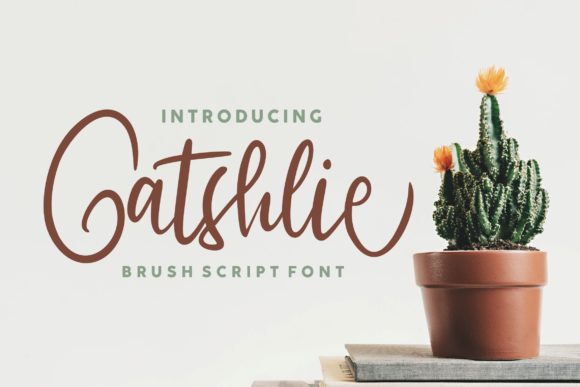
Gatshlie Script: A Luxurious Calligraphy Font
Gatshlie Script is a calligraphy typeface that brings elegance and fluidity to any design. Its characters seem to dance along the baseline, offering a unique visual rhythm that stands out in both digital and print formats. Whether you're crafting a logo, designing a wedding invitation, or creating branding materials, Gatshlie Script adds a touch of sophistication that can elevate your work.
What Is Gatshlie Script?
Gatshlie Script is a beautifully crafted font designed for those who appreciate the artistry of calligraphy. It features flowing lines and elegant curves that mimic the strokes of traditional hand-lettering. This makes it ideal for projects that require a personal, artistic feel rather than a purely functional typeface.
The font's adaptability allows it to be used in various contexts—from minimalist designs to more elaborate compositions. Its versatility ensures that it can be applied across multiple industries, including fashion, publishing, marketing, and even educational materials.
Why Different Audiences Care About Gatshlie Script
While Gatshlie Script may appeal to a wide range of users, its value can vary depending on the individual's goals and needs. Here's how different audiences might find it useful:
How Different Users Might Approach Gatshlie Script
The way people interact with Gatshlie Script often depends on their experience level, project goals, and tools available. Let's take a closer look at how different user groups might approach this font:
Beginners and Hobbyists
If you're new to typography or just experimenting with fonts, Gatshlie Script is a great choice. It doesn't require any special software or expertise—just a basic understanding of how to apply it in your favorite design tool. You can use it to create custom greeting cards, personalize stationery, or even write poetry in a more artistic format.
For hobbyists, the font's flexibility means you can try it out in various formats, such as digital art, print, or even embroidery. The key is to experiment and see what works best for your personal style.
Designers and Professionals
For professional designers, Gatshlie Script can be a valuable addition to their font library. It's especially useful for projects that need a unique, artistic feel. However, professionals may also consider factors like licensing, scalability, and compatibility with different platforms.
When working on client projects, it's important to ensure that Gatshlie Script meets the specific needs of the brand. For example, a luxury fashion brand might prefer a bolder version of the font, while a lifestyle blog might opt for a more delicate application.
Entrepreneurs and Business Owners
Small business owners often seek ways to stand out in a crowded market. Gatshlie Script can help achieve that by adding a touch of elegance to branding elements. From website headers to product packaging, the font can communicate a sense of quality and refinement.
However, entrepreneurs should also consider practical aspects like cost and ease of use. Some may prefer free or affordable options, while others are willing to invest in premium fonts for long-term brand consistency.
Marketers and Bloggers
In marketing, visual appeal is crucial. Gatshlie Script can be used creatively in social media posts, email newsletters, or ad campaigns to capture attention and build emotional connections with the audience.
Bloggers might use it in headlines or featured images to make their content more visually engaging. However, they should be mindful of readability, especially when using it in body text. It's best suited for headings, titles, or decorative elements rather than large blocks of text.
Key Considerations When Using Gatshlie Script
Before deciding whether Gatshlie Script is right for your project, there are several factors to consider:
1. Readability: While Gatshlie Script is beautiful, it may not be the best choice for long paragraphs of text. Use it sparingly for headings, titles, or short phrases to maintain clarity.
2. Licensing: Ensure you have the appropriate license to use the font in commercial projects. Some fonts require payment or attribution, so always check the terms of use.
3. Compatibility: Test the font across different devices and platforms to ensure it displays correctly. Some fonts may not render well on all systems, which could affect the final appearance of your design.
5. Creativity: Gatshlie Script encourages creativity through its expressive nature. Experiment with spacing, color, and layout to find the perfect balance between aesthetics and functionality.